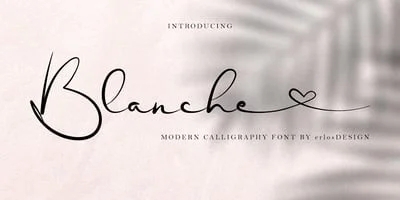
Blanche Font
Blanche Font is ideal for elegant wedding invitations, luxury spa branding, minimalist fashion labels, sophisticated magazine layouts, high-end cosmetics packaging, refined business stationery, upscale interior design projects, and premium lifestyle brands. This graceful typeface performs exceptionally well in both digital and print applications where purity, elegance, and timeless sophistication are essential for creating memorable impressions.
What makes Blanche Font exciting is its stunning combination of pristine simplicity and refined elegance. The meticulously crafted letterforms feature clean lines, gentle curves, and pure aesthetic details that instantly evoke feelings of serenity and sophisticated beauty. Its ethereal personality makes it perfect for brands seeking to establish connections with audiences who appreciate understated luxury and timeless design. The font's ability to convey both delicate grace and confident strength creates an irresistible aura of refined sophistication.
The Blanche Font family encompasses various elegant styles: Regular, Bold, Light, Thin, Italic, and Script versions with special ornamental flourishes, delicate symbols, and refined decorative elements. Each family member preserves the pure essence while offering different levels of visual weight and stylistic expression. The comprehensive character set supports extensive multilingual coverage and includes specialized elegant symbols, currency marks, and sophisticated ornaments that enhance luxury branding possibilities.
For luxury branding, wellness marketing, or sophisticated design projects, Blanche Font provides the perfect typography solution for creating connections with discerning audiences who value purity and elegance. Its masterful craftsmanship and pristine character make it an invaluable asset for designers who want to infuse their work with genuine sophistication and create designs that embody timeless beauty and grace.